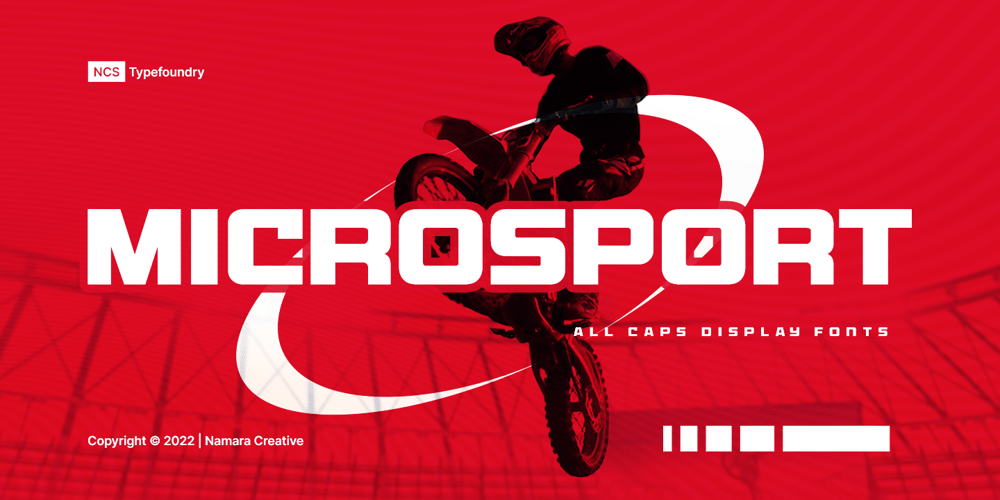
Microsport Font Family was designed by Toni Setiawan and published by Namara Creative Studio. Microsport contains 2 styles and family package options. Bring strong atmosphere in modern style for your projects. This font perfect for headline, general advertising, packaging, sport logo / branding and many other platforms.Features :- Alternates, Ligatures & Multilingual Support- Modern, Sporty & Techno Theme Font- Almost 300+ GlyphsFeel free to get in touch if need any help or special request about our fonts.